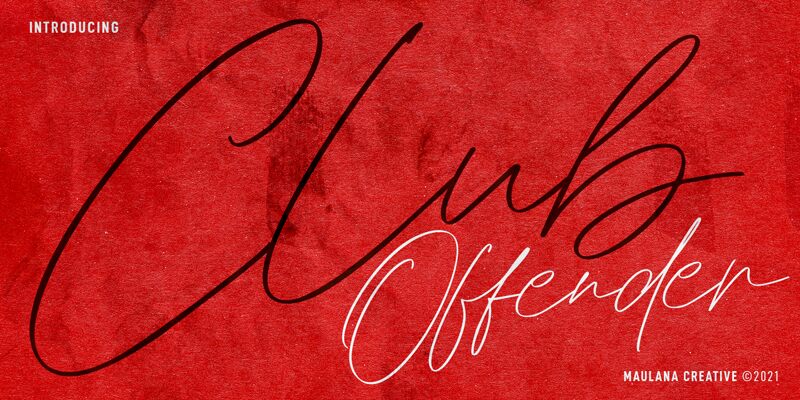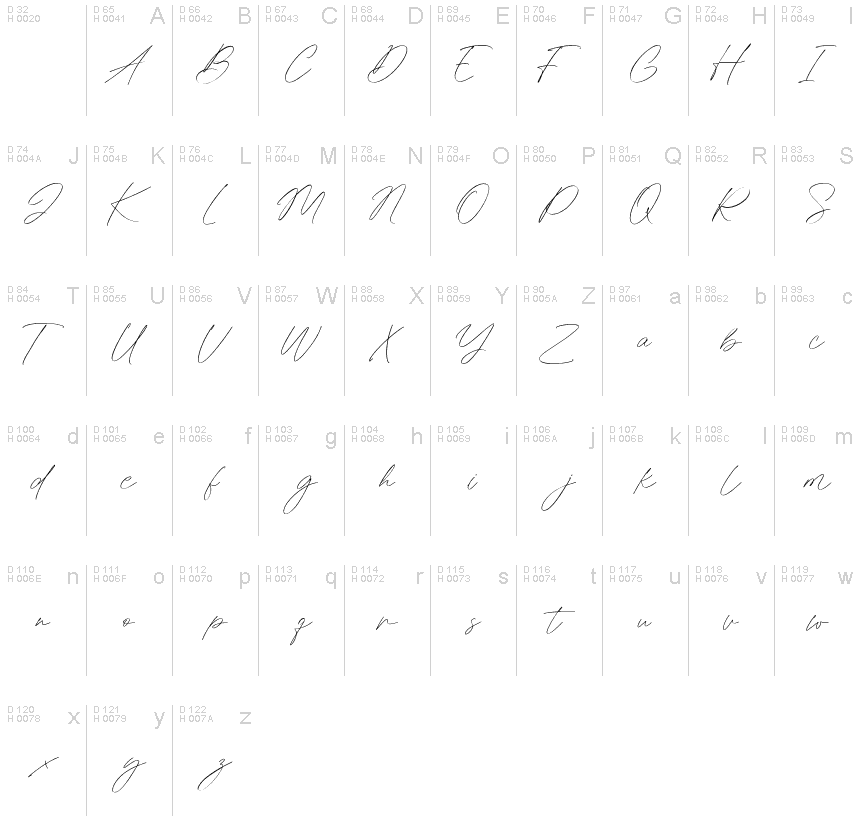
Offenders Club Free Regular
Offenders Club is a captivating handwritten typeface designed by Maulana Creative. This extra-light font style boasts an edgy vibe, perfect for brands looking to make a statement. Its unique and playful design makes it suitable for various projects such as logo design, branding, packaging, and social media posts. Whether you're creating a fashion brand or designing a music album cover, Offenders Club will add personality and character to your project. Its handwritten style gives off an authentic feel, making your designs stand out from the rest. Add some flair to your next project with Offenders Club!